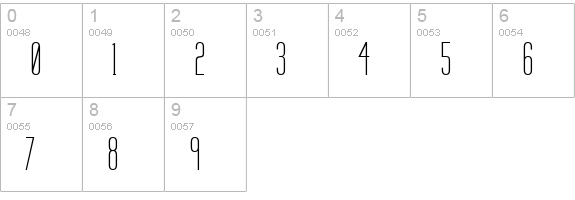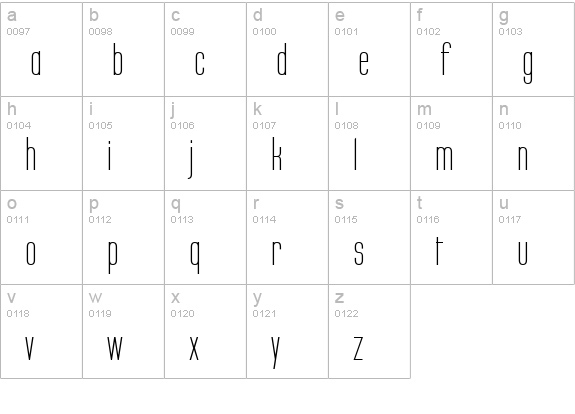
Labtop Secundo is a modern and stylish font that exudes sophistication and elegance. With its clean lines and sharp angles, this font is perfect for a wide range of design projects, from branding to packaging to digital graphics. The sleek and professional look of Labtop Secundo makes it a versatile choice for both print and digital media. What sets Labtop Secundo apart is not only its aesthetic appeal but also the fact that it is available for free download at FontsMarket.com. This means that designers and creatives can access this high-quality font without any cost, making it an excellent choice for those looking to elevate their projects without breaking the bank. Whether you are working on a logo design, website layout, or any other creative project, Labtop Secundo is sure to make a statement. Download this font for free today and see for yourself the impact it can have on your designs.